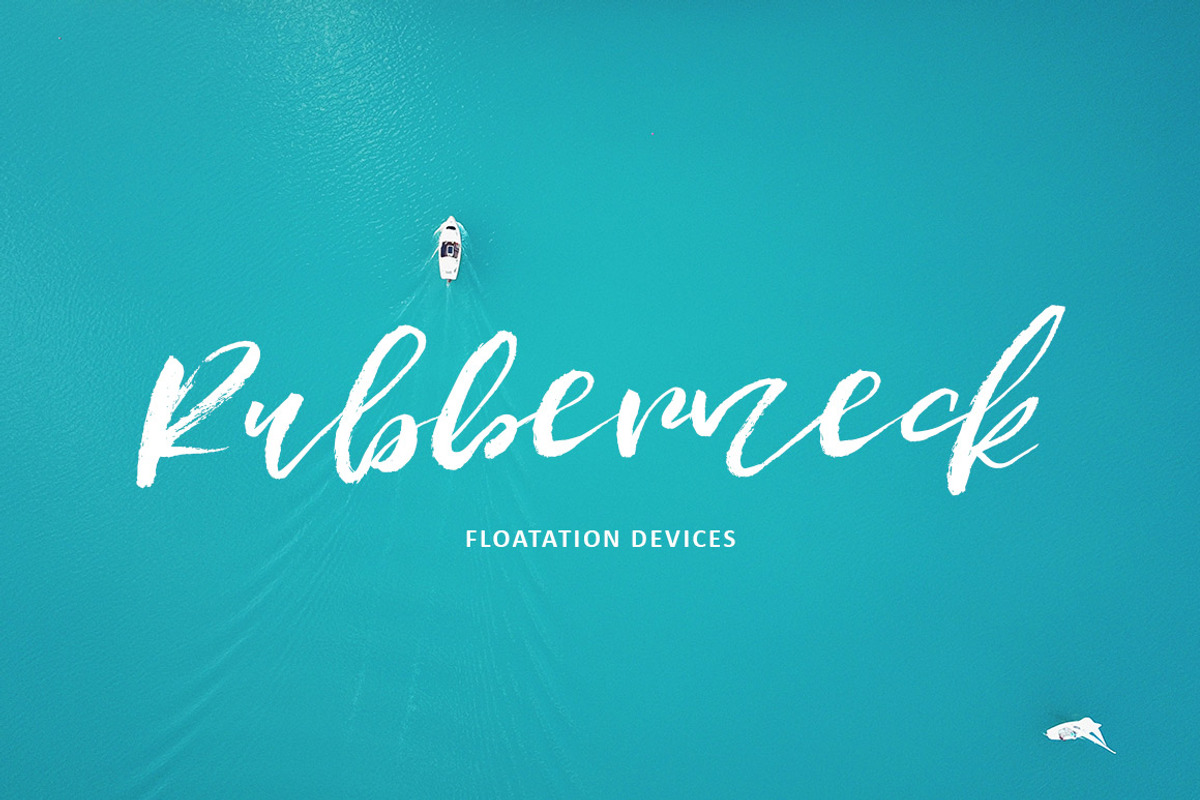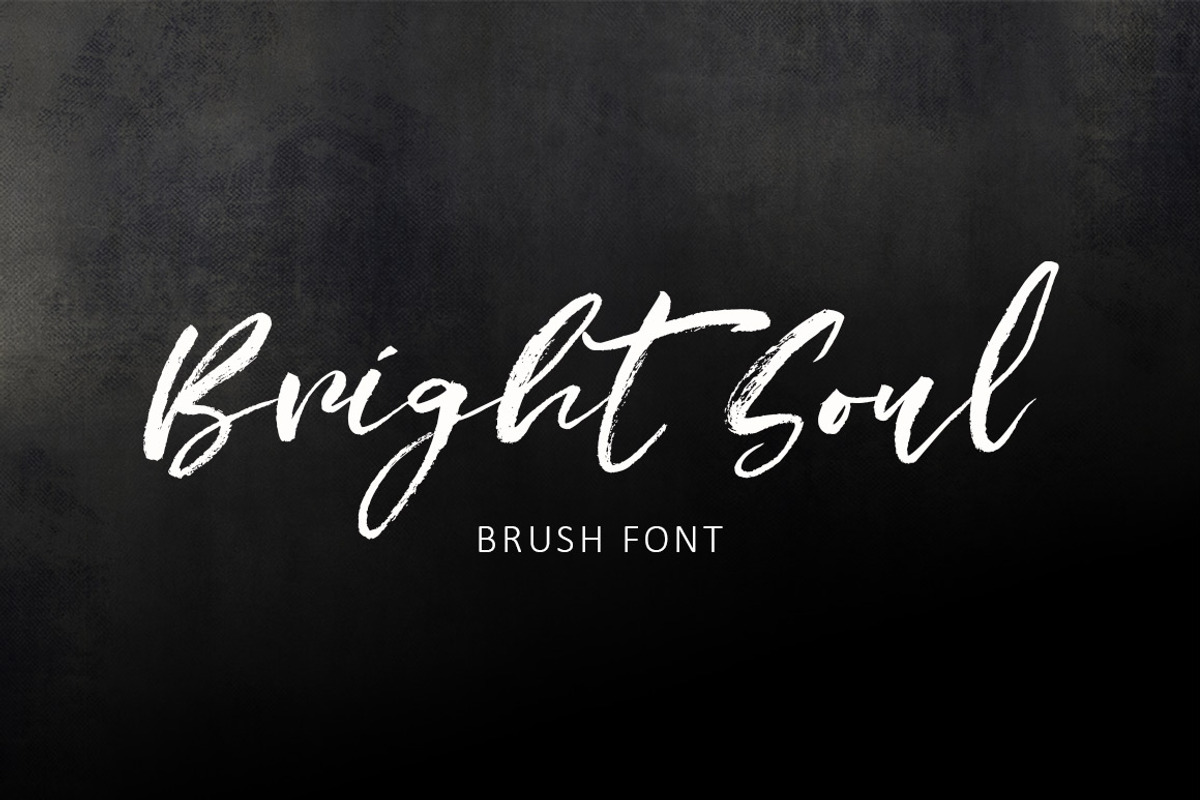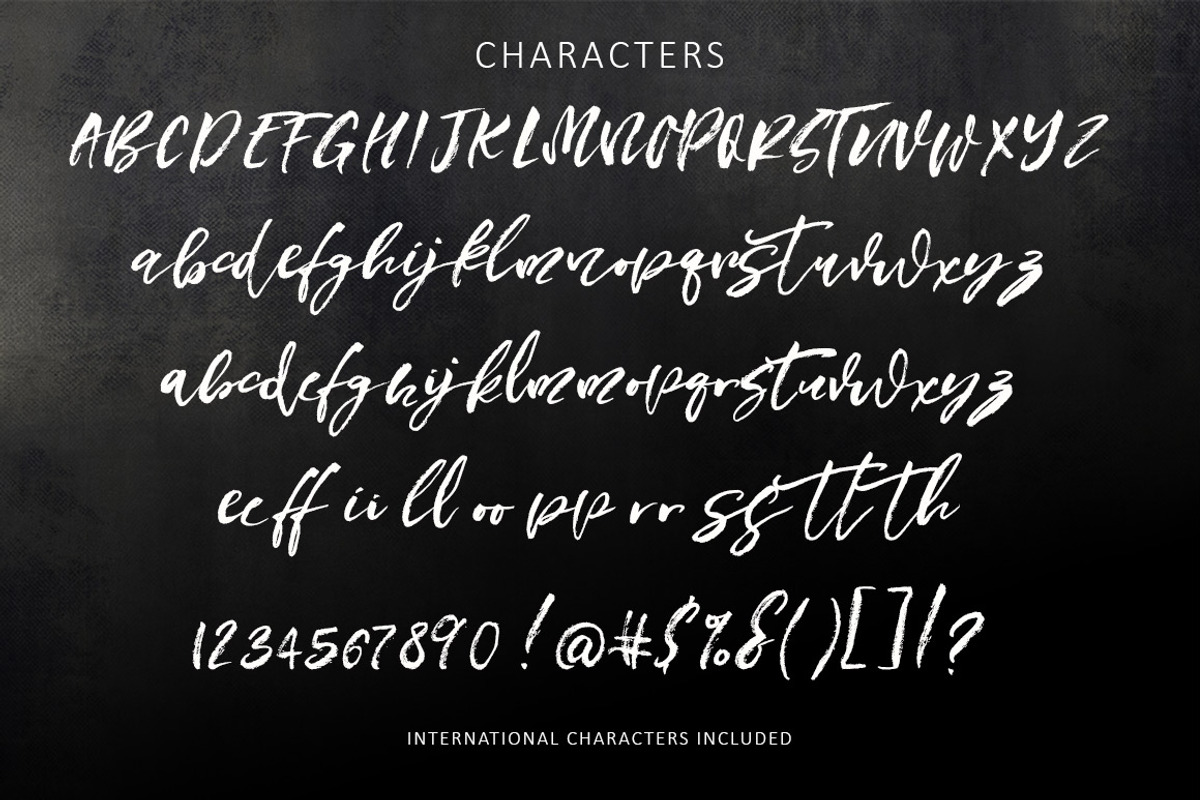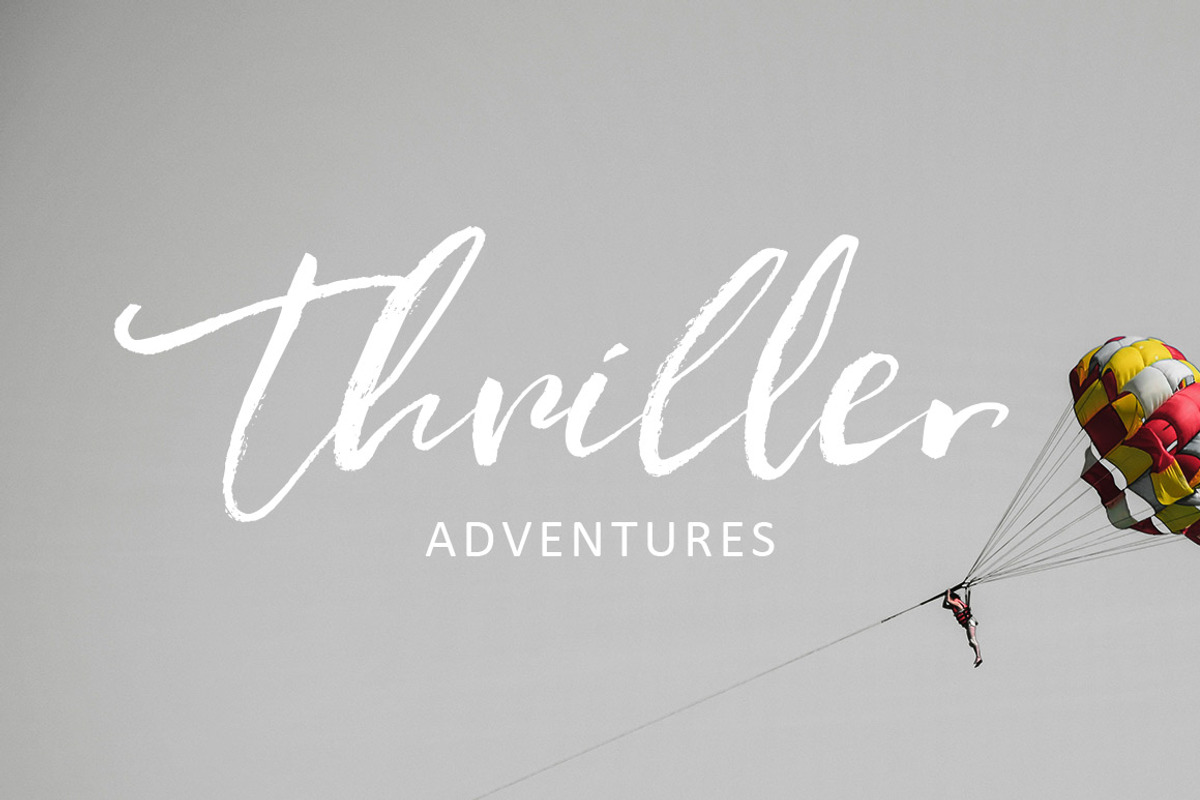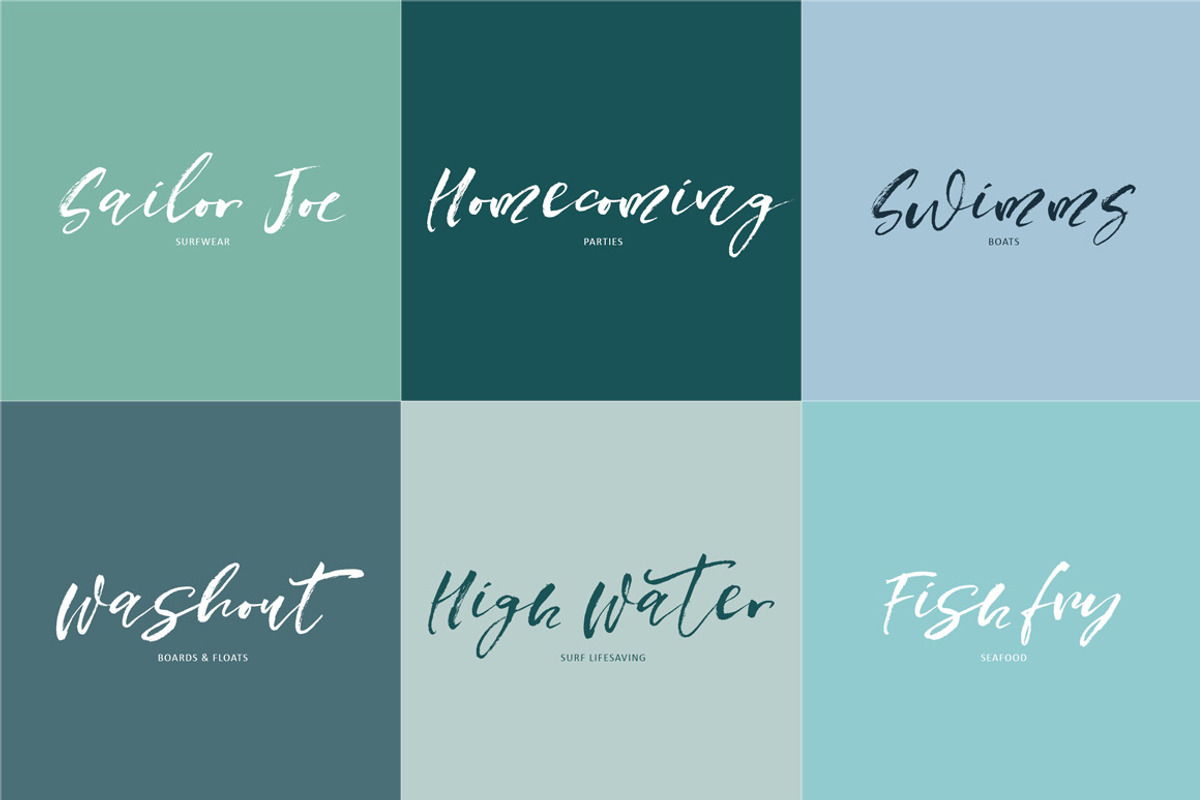
Bright Soul Script Font
Introducing Bright Soul a brush script font with loads of hand brushed character.
Bright soul has alternates and double ligatures.
International Characters are supported.
Bright Soul Script Font by Creativeqube Design fits naturally into Branding, posters, packaging, typography.